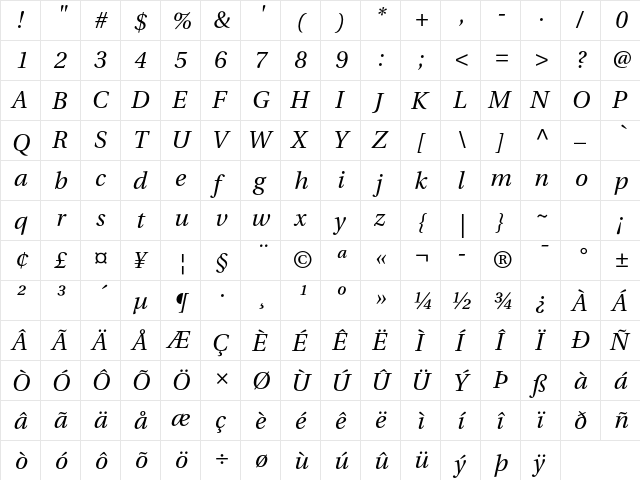
Linguistics Pro Italic
| Foundry | Stefan Peev, Context Ltd |
| Designer | Stefan Peev, Context Ltd |
Design Context for Linguistics Pro Typeface
Linguistics Pro takes a measured approach to typography — its balanced proportions and neutral character make it a reliable workhorse for both digital and print work. The slanted form adds forward momentum and visual energy.
Pro Tip: Try Linguistics Pro for annotation and caption copy alongside an upright companion — the contrast in angle creates a dynamic but ordered typographic system.